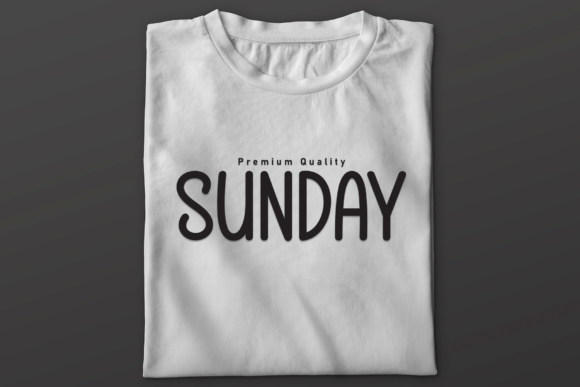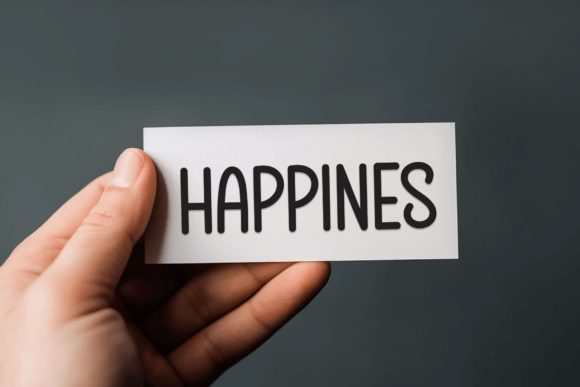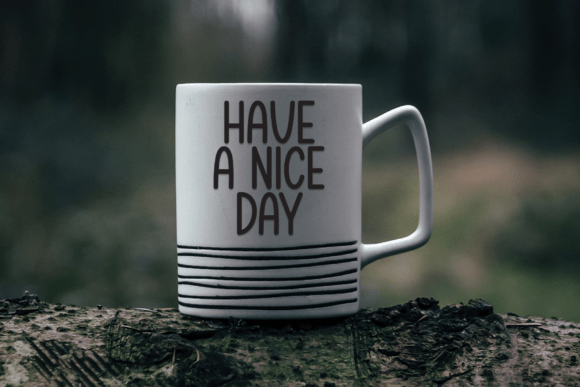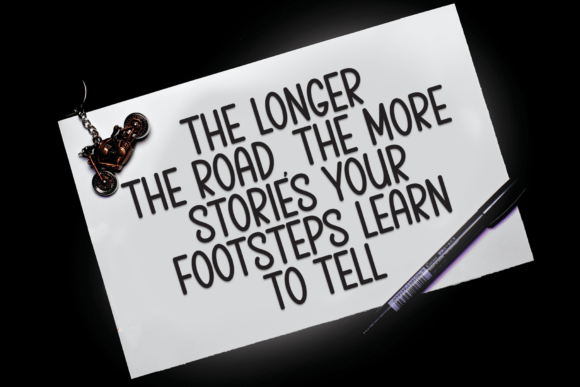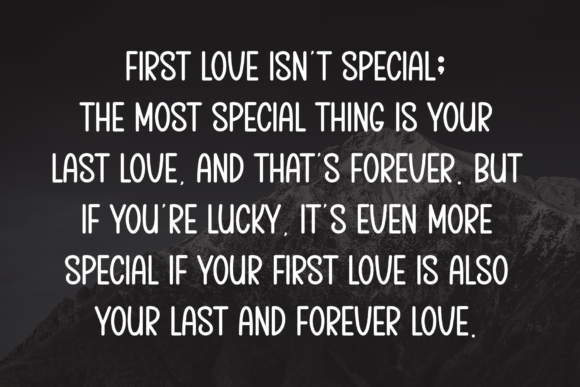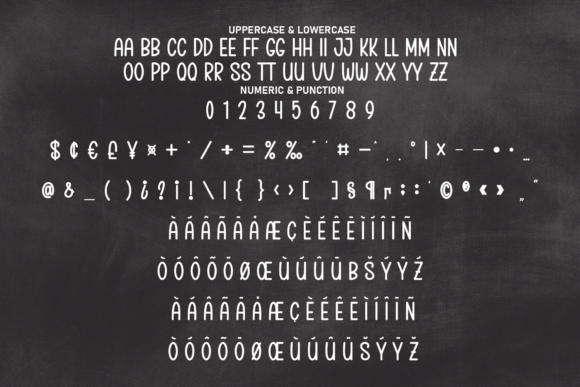
Introduction to Chalk Notes Font
Unveiling a meticulously handcrafted display typeface that emanates pure delight and allure – a quintessence of captivating appeal and delightful vivacity.
Radiating an inviting aura packed with harmonious charm, this font is an artistic powerhouse, poised to breathe life into your wedding invitations or heartfelt greetings Perfect for any imaginative endeavor that longs for a sprinkle of happiness.
Key Features of Chalk Notes Font
Why Choose Chalk Notes Font?